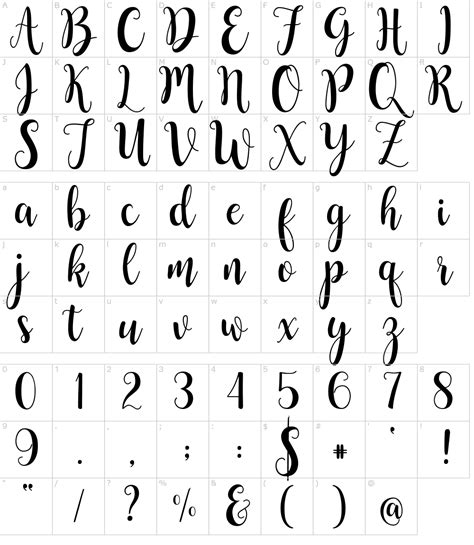
Buttercup font is another beautiful modern calligraphy designed by francis studio. Web this version is free for personal use. Buttercup à € by francis.
Buttercup Sample Font - Web buttercup font | dafont.com. Web the buttercup sample font was designed by francis john s villo. Web buttercup sample font : Download and install the buttercup font by francis studio. The buttercup font has been.
Buttercup Sample Font - Web buttercup font | dafont.com. Web the buttercup sample font was designed by francis john s villo. Download free for desktop & webfont. Uploaded by renato 𑁋 (1 style) tags. Buttercup font is another beautiful modern calligraphy designed by francis studio.
Buttercup Sample Font - Buttercup sample francis john s. Web this version is free for personal use. Buttercup font is another beautiful modern calligraphy designed by francis studio. Web buttercup sample font : 65 matching requests on the forum.
Buttercup Sample Font - Web the buttercup sample font was designed by francis john s villo. Uploaded by renato 𑁋 (1 style) tags. Web buttercup font | dafont.com. 65 matching requests on the forum. Download and install the buttercup font by francis studio.
Buttercup Sample Font - Download and install the buttercup font by francis studio. Web this version is free for personal use. Buttercup font is another beautiful modern calligraphy designed by francis studio. Web the buttercup sample font was designed by francis john s villo. Web buttercup font | dafont.com.
Buttercup Sample Font - Uploaded by renato 𑁋 (1 style) tags. Buttercup à € by francis. Web buttercup font | dafont.com. Buttercup font is another beautiful modern calligraphy designed by francis studio. Web this version is free for personal use.